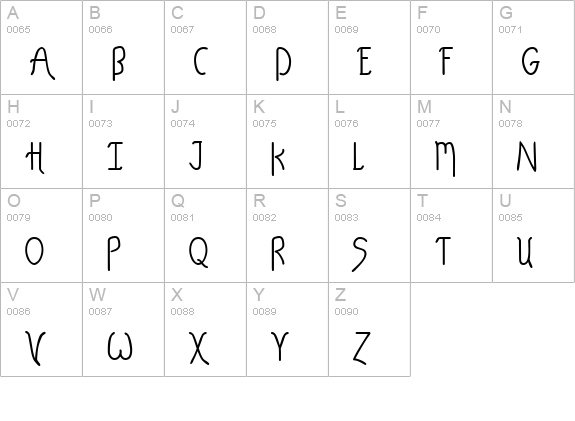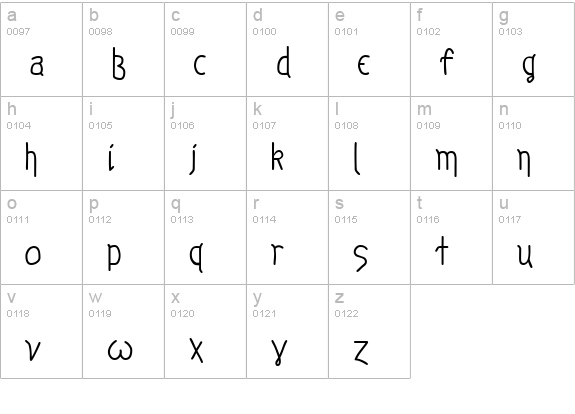
Kelp Ban Font Details
Introducing Kelp Ban, a captivating and versatile font that will bring your designs to life with its unique and modern aesthetic. This remarkable typeface seamlessly blends the elegance of traditional fonts with a contemporary twist, making it perfect for a wide range of creative projects. Kelp Ban is a free font that exudes sophistication and character. Its beautifully crafted letterforms showcase delicate curves and clean lines, creating a harmonious balance that is both visually pleasing and highly readable. Whether you're designing a logo, a poster, a website, or any other creative endeavor, Kelp Ban will effortlessly elevate your work to new heights. One of the most remarkable features of Kelp Ban is its versatility. This font effortlessly adapts to various design contexts, making it suitable for both headlines and body text. Its legibility and clarity ensure that your message is effectively communicated, while its distinct personality adds a touch of uniqueness to your designs. But what truly sets Kelp Ban apart is its accessibility. This font is freely available to download at FontsMarket.com, making it easily accessible to designers, artists, and creatives from all walks of life. By offering this font for free, we aim to empower and inspire individuals to unleash their creativity without any barriers. With Kelp Ban, you have the freedom to explore and experiment, allowing your imagination to run wild. Let this font be the catalyst for your next creative journey and watch as your designs come to life with a touch of elegance and sophistication. Download Kelp Ban today from FontsMarket.com and embark on a design adventure like no other. Unleash your creativity, express your unique vision, and make a lasting impression with this remarkable font.